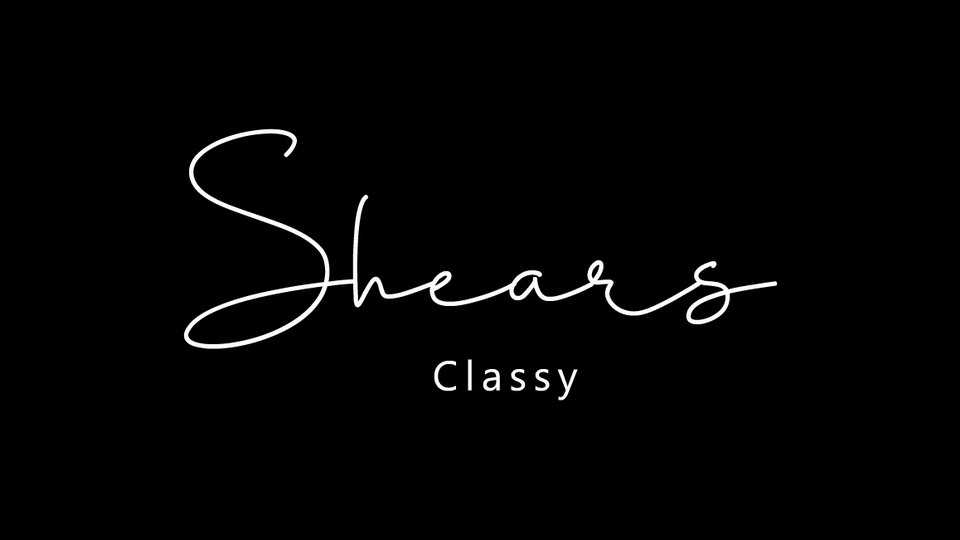
Download Shears font, an amazing handwritten script with a natural signature style, an elegant and clean. Perfect for personal branding and logo, watermarks, social media, quotes, letters, cards, magazines and other beautiful designs.